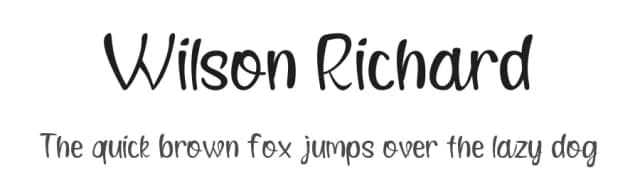
About Magnum Font
Magnum Font is a script font that shines as a display or heading face. Pair it with a clean sans-serif or serif font for body text β the contrast creates a clear hierarchy while the two styles stay balanced and easy to read.
Magnum Font